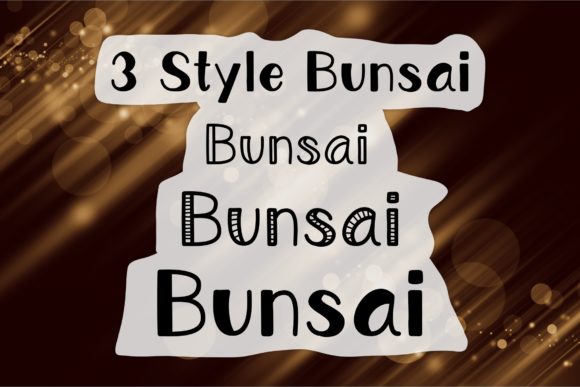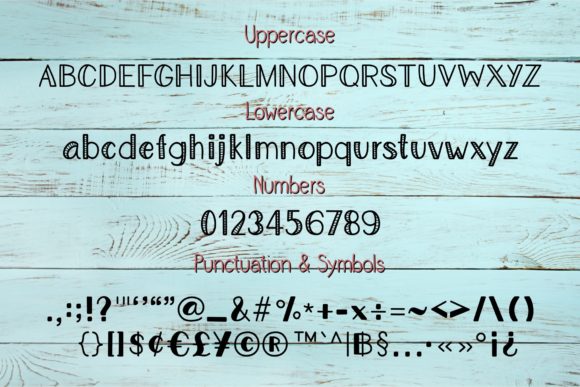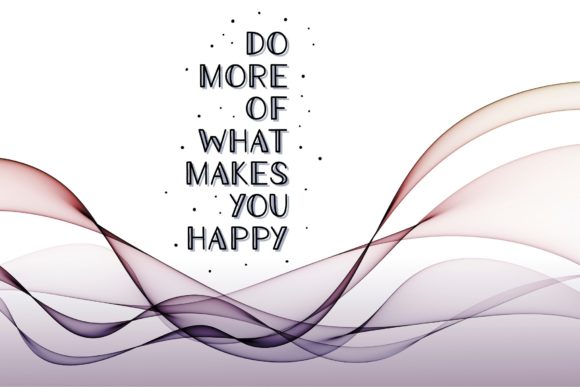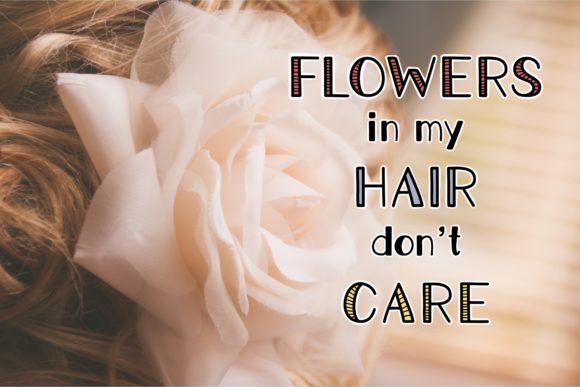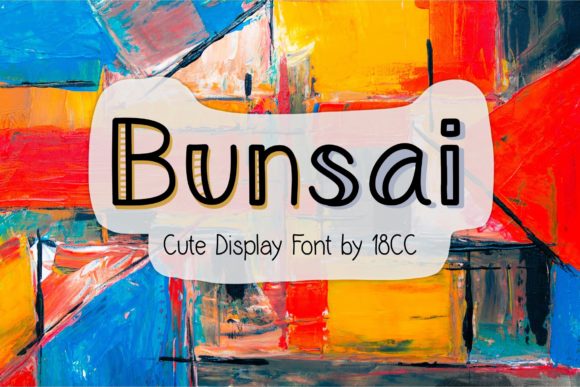
Bunsai Font: Elevate Your Designs with a Fun and Friendly Handwritten Style
Are you tired of using the same old fonts in your designs? Do you want to add a touch of personality and whimsy to your creations? Look no further than the Bunsai Font, a fun, friendly, and adaptable handwritten font that’s sure to make your designs stand out from the crowd.
What is Bunsai Font?
Bunsai Font is a carefully crafted handwritten font that’s designed to be simple yet visually striking. With its unique blend of elegance and playfulness, this font is perfect for designers and crafters who want to add a personal touch to their work.
Whether you’re creating a logo, a poster, a social media graphic, or a craft project, Bunsai Font is the perfect choice. Its versatility and adaptability make it suitable for a wide range of applications, from formal to informal, and from digital to print.
Key Features of Bunsai Font
- Handwritten style: Bunsai Font has a warm and personal feel that’s reminiscent of handwritten text. Its unique character and charm make it perfect for designs that require a touch of personality.
- Simple yet visually striking: Despite its simplicity, Bunsai Font has a strong visual effect that will instantly elevate your designs. Its clean lines and elegant curves make it easy to read and visually appealing.
- Adaptable: Bunsai Font is highly versatile and can be used in a variety of contexts, from formal to informal, and from digital to print.
- Fun and friendly: Bunsai Font has a playful and approachable feel that’s perfect for designs that require a lighthearted touch.
Why Choose Bunsai Font?
There are many reasons why Bunsai Font stands out from the crowd. Here are just a few:
- Unique character: Bunsai Font has a distinctive personality that’s hard to find in other fonts. Its handwritten style and elegant curves make it a true standout.
- Ease of use: Bunsai Font is incredibly easy to use, even for those who are new to design. Its clean lines and simple structure make it easy to read and work with.
- High-quality design: Bunsai Font is designed to the highest standards, with careful attention to detail and a focus on aesthetics.
- Time-saving: With Bunsai Font, you can create stunning designs in a fraction of the time it would take with other fonts. Its simplicity and adaptability make it easy to use in a variety of contexts.
How to Use Bunsai Font
Bunsai Font is incredibly versatile and can be used in a wide range of applications. Here are just a few ideas to get you started:
- Logos and branding: Bunsai Font is perfect for creating unique and memorable logos that will help your brand stand out.
- Posters and flyers: Bunsai Font is a great choice for posters and flyers that require a bold and eye-catching headline.
- Social media graphics: Bunsai Font is perfect for creating engaging social media graphics that will help you connect with your audience.
- Craft projects: Bunsai Font is a great choice for craft projects, such as card making, scrapbooking, and journaling.
In conclusion, Bunsai Font is a fun, friendly, and adaptable handwritten font that’s perfect for designers and crafters who want to add a personal touch to their work. Its unique character, simplicity, and versatility make it a great choice for a wide range of applications, from formal to informal, and from digital to print.
Whether you’re a seasoned designer or just starting out, Bunsai Font is a great addition to your font library. So why not give it a try and see how it can elevate your designs?